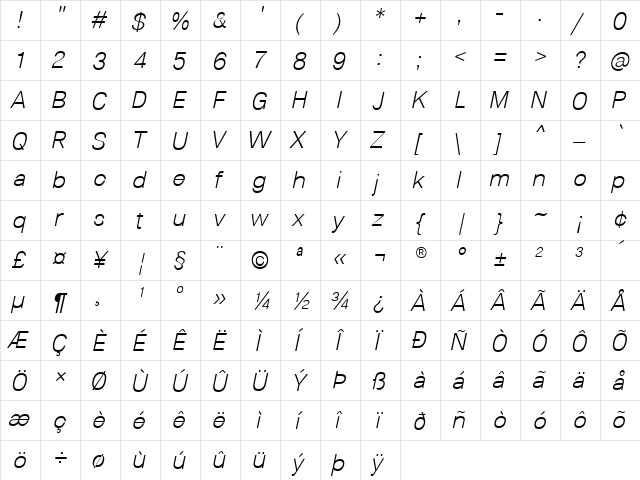
Lunchtype23 Light Italic
| Foundry | Steppot |
| Designer | Steppot |
Design Context for Lunchtype23 Typeface
Lunchtype23 takes a measured approach to typography — its balanced proportions and neutral character make it a reliable workhorse for both digital and print work. Its italic angle brings a sense of urgency and motion to the letterforms. The delicate stroke weight brings airiness and refinement to layouts.